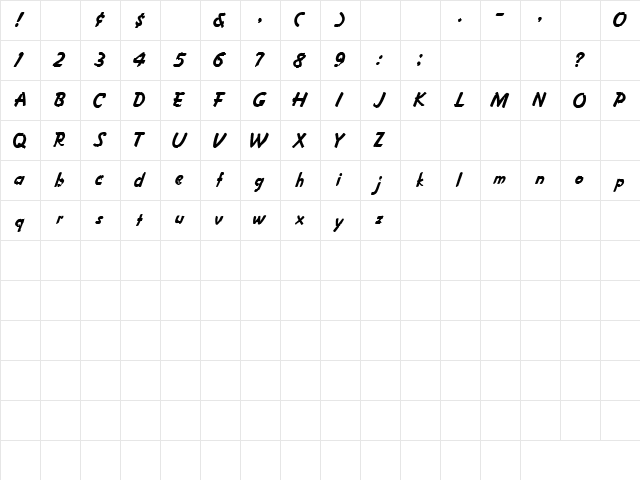
Restrained 1 Regular
Design Context for Restrained 1 Typeface
Restrained 1 is a composed and adaptable typeface that performs quietly and consistently across a wide range of design contexts.